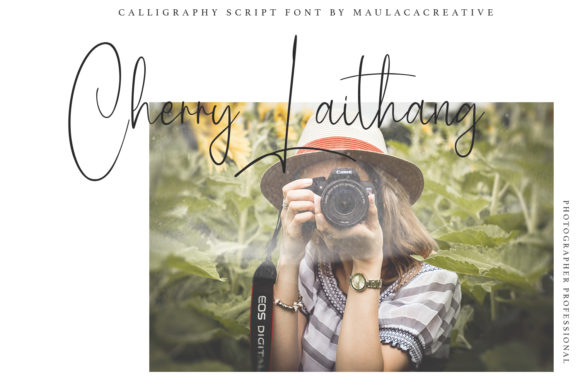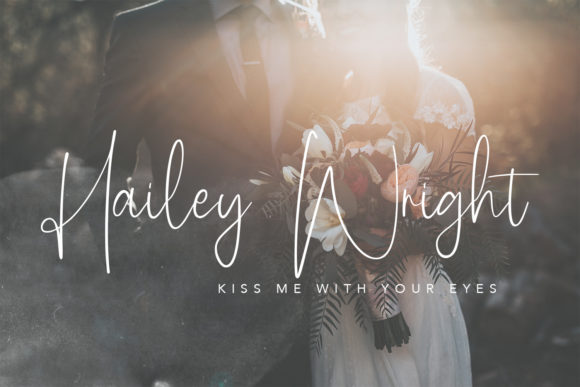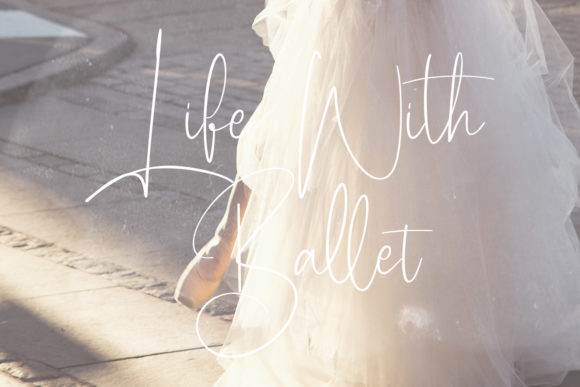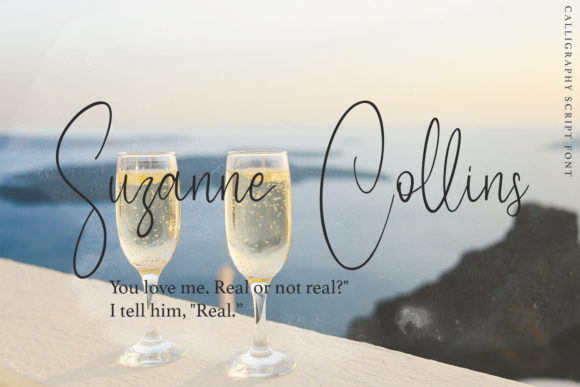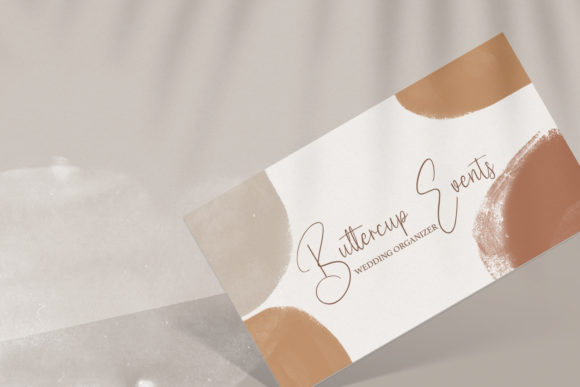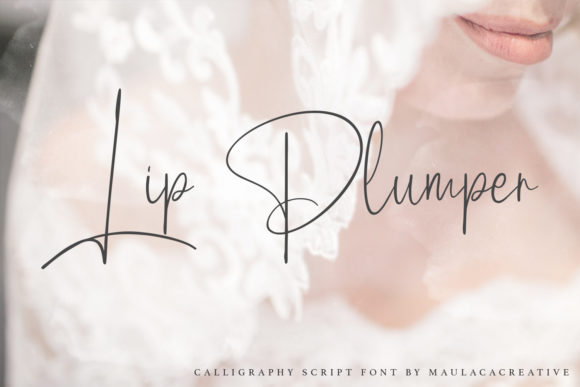
Discover the Elegance of Clairdelune Font: Elevate Your Designs with a Touch of Sophistication
Are you on the hunt for a font that exudes elegance, sophistication, and a dash of modern flair? Look no further than the Clairdelune Font, a stunning handwritten typeface that is sure to capture your heart. Designed with meticulous attention to detail, Clairdelune seamlessly blends classic calligraphic influences with a contemporary twist, making it the perfect addition to your design arsenal.
The Story Behind Clairdelune
Clairdelune is more than just a font – it’s an exquisite piece of art that brings a touch of luxury to any project. Its creator, with a deep understanding of typography and design, has masterfully crafted each letter to convey a sense of refinement and poise. The result is a font that feels both timeless and refreshingly modern, making it versatile enough to be used across a wide range of applications.
What Makes Clairdelune Stand Out?
- Classy Calligraphic Influences: Clairdelune’s roots in traditional calligraphy are evident in its fluid strokes and elegant letterforms. Each character is a testament to the beauty of handwritten typography, bringing a personal touch to your designs.
- Contemporary and Fresh: While Clairdelune pays homage to classic calligraphy, it also boasts a modern sensibility that ensures it won’t look out of place in today’s design landscape. Its unique blend of old and new makes it a standout choice for designers looking for something that will set their work apart.
- Versatility: Whether you’re working on a wedding invitation, a brand identity, a packaging design, or a digital project, Clairdelune adapts effortlessly. Its versatility is one of its most compelling features, allowing you to use it across various mediums without sacrificing style or legibility.
- Emotional Connection: Fonts have the power to evoke emotions and set the tone for a message. Clairdelune, with its warm and inviting feel, helps create a connection with your audience, making your designs more relatable and engaging.
How to Use Clairdelune in Your Projects
- Wedding and Event Design: Add a touch of romance and sophistication to wedding invitations, save-the-date cards, and event branding with Clairdelune.
- Branding and Packaging: Elevate your brand’s identity with a font that communicates luxury, quality, and attention to detail. Clairdelune is perfect for premium products, cosmetics, and high-end services.
- Digital Content: Use Clairdelune in your digital marketing materials, such as social media graphics, email newsletters, and website headers, to create a cohesive and stylish visual identity.
- Stationery and Print Design: From business cards to letterheads and brochures, Clairdelune brings a level of elegance that can transform ordinary print materials into memorable brand assets.
Why Designers and Crafters Love Clairdelune
Designers and crafters who have had the pleasure of working with Clairdelune often praise its ability to elevate their projects with minimal effort. Here are a few reasons why it has become a favorite:
- Easy to Read: Despite its elegant appearance, Clairdelune remains highly legible, making it suitable for both headings and body text.
- Highly Customizable: Experiment with different sizes, colors, and pairings to make Clairdelune your own. Its flexibility allows for endless creative possibilities.
- Time-Saving: With Clairdelune, you can achieve professional-looking results quickly, saving you time and effort in the design process.
Clairdelune Font is a game-changer for designers and crafters looking to infuse their projects with a sense of style and sophistication. Its unique blend of classic calligraphy and modern design makes it a versatile and valuable addition to any creative toolkit. Whether you’re aiming to create stunning visual content, enhance your brand’s image, or simply explore new design possibilities, Clairdelune is sure to exceed your expectations. So why wait? Fall in love with Clairdelune and take your designs to new heights of elegance and creativity.